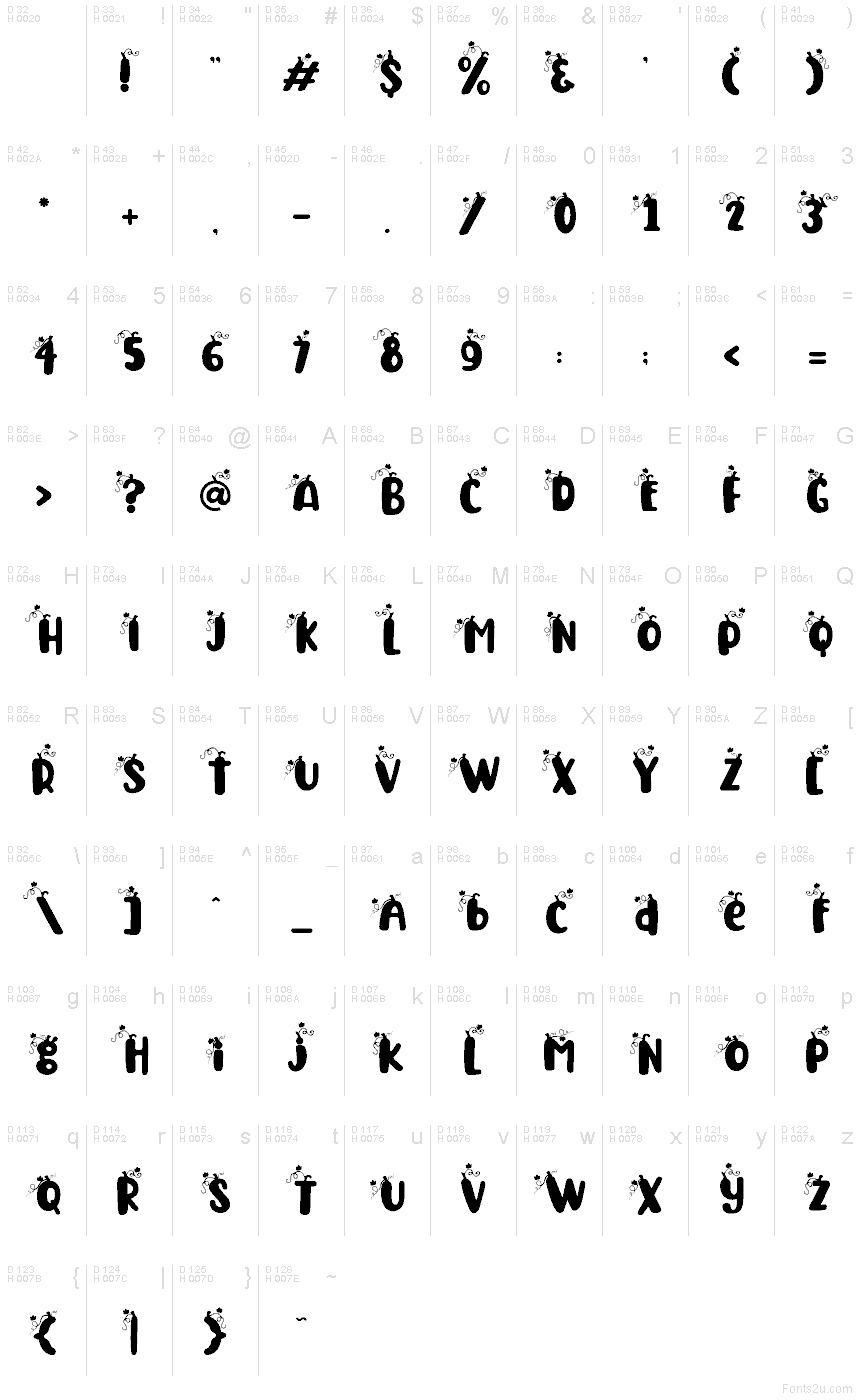
Thanksgiving Joy Pumpkin font by PutraCetol Studio is a decorative, whimsical typeface with plenty of seasonal spirit. Its lovely natural details, such as leaves and branches that grow from within the characters, are reminiscent of fall foliage. Its frolicsome style has a modern, animated quality featuring thin line detailing and large centers with plenty of emphasis on its playful festive theme.
Invite Autumn cheer to your seasonal designs including gift cards and packages, flyers for regional fairs or harvest events, Thanksgiving décor items as well as greeting cards. Each letter is equipped with beautiful animated energy perfect for fun children’s book covers or posters for holiday vacations.